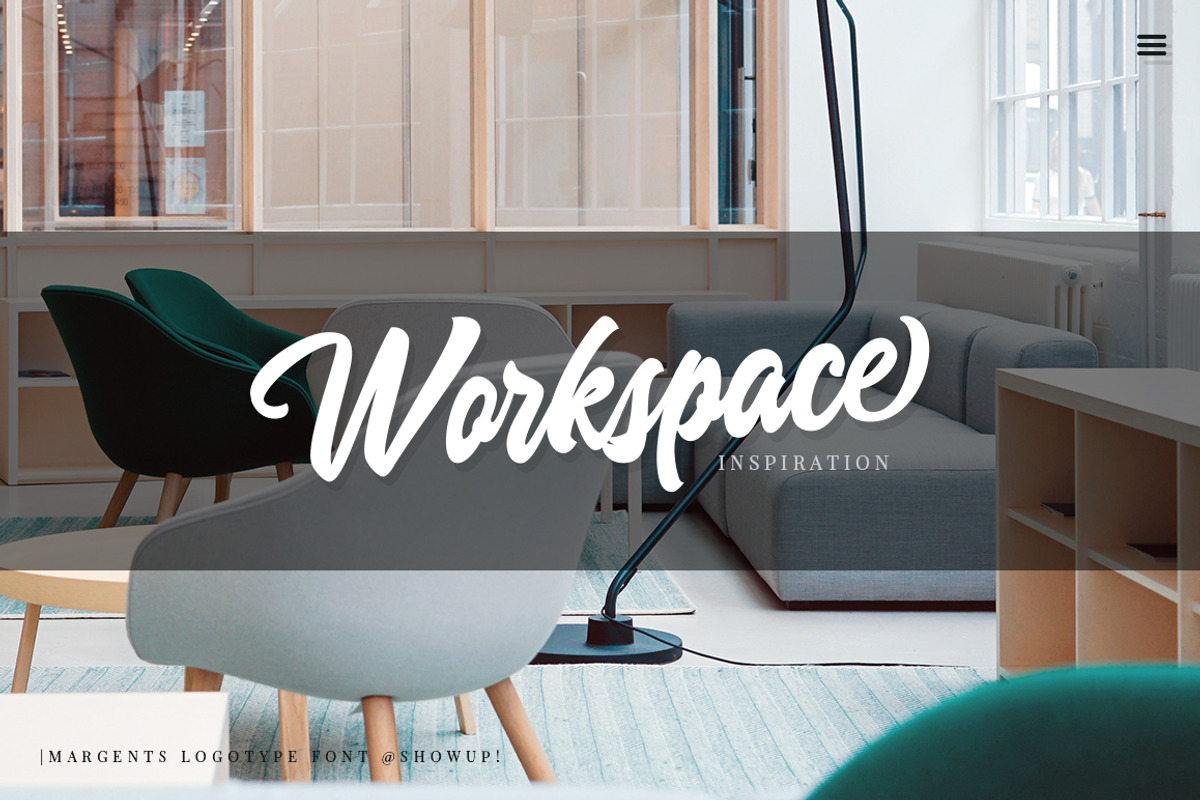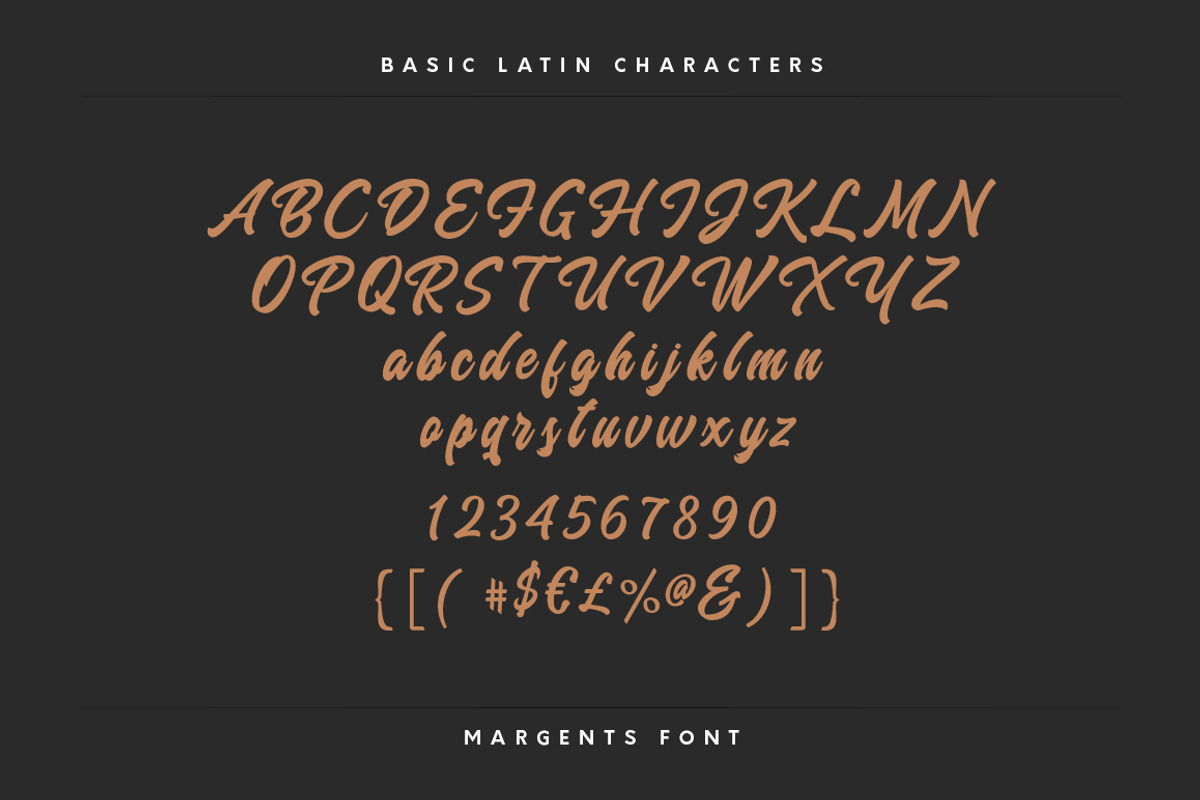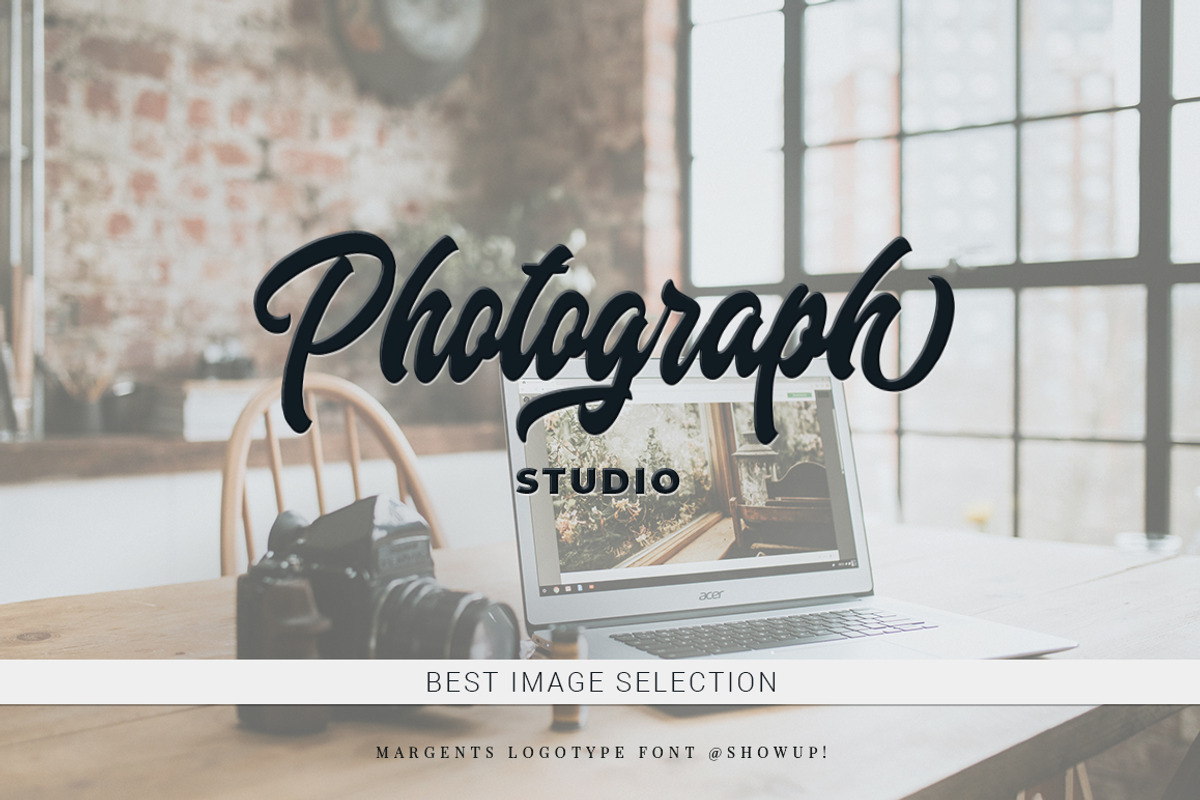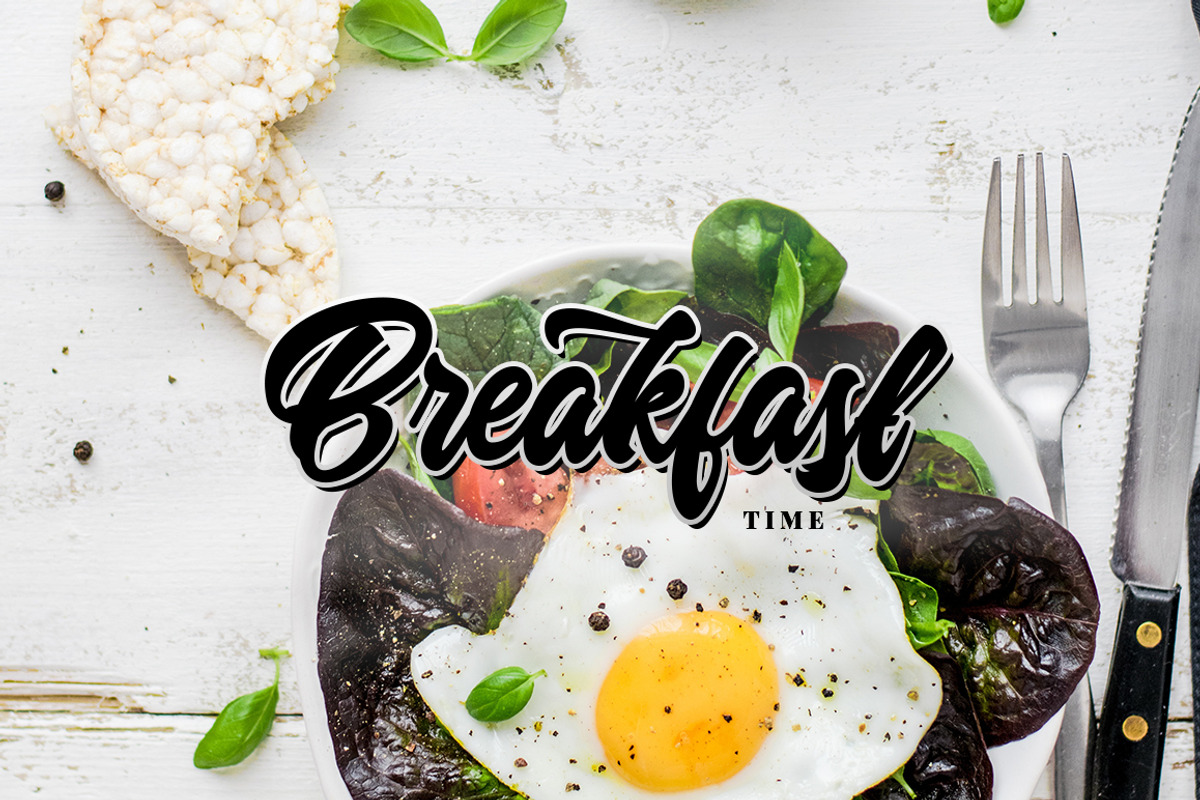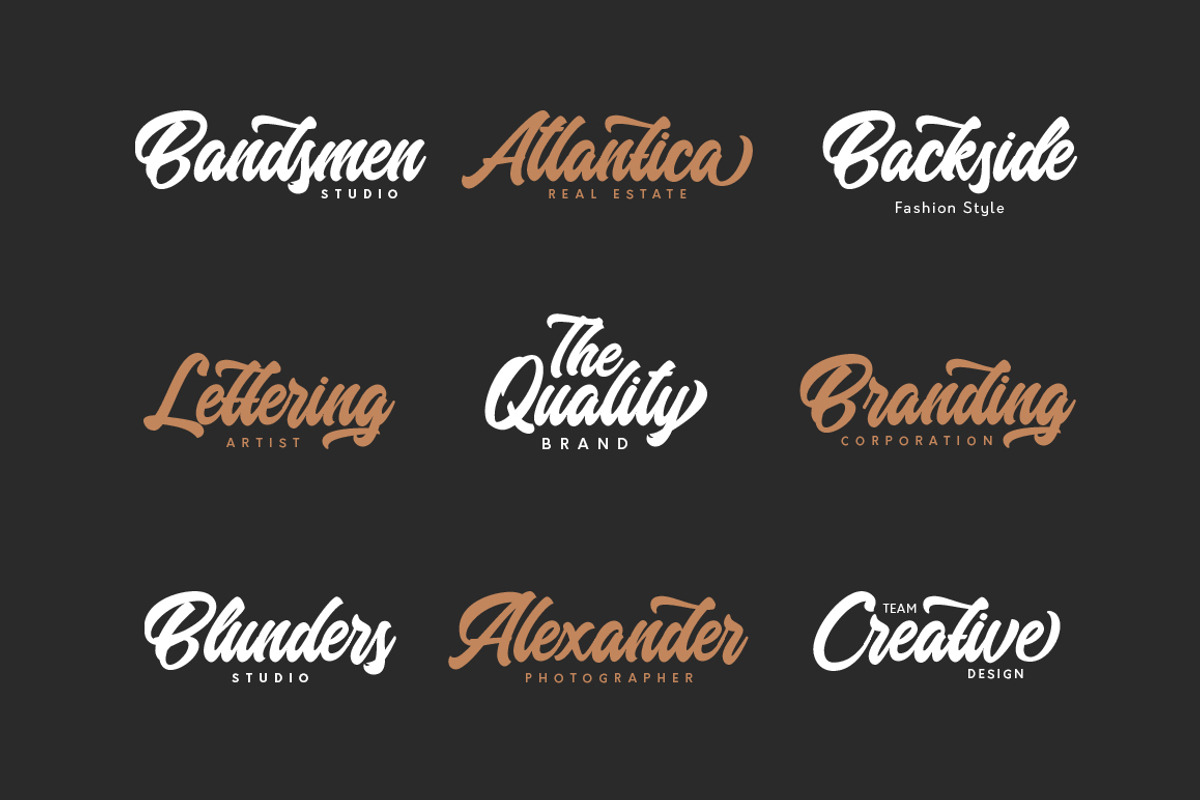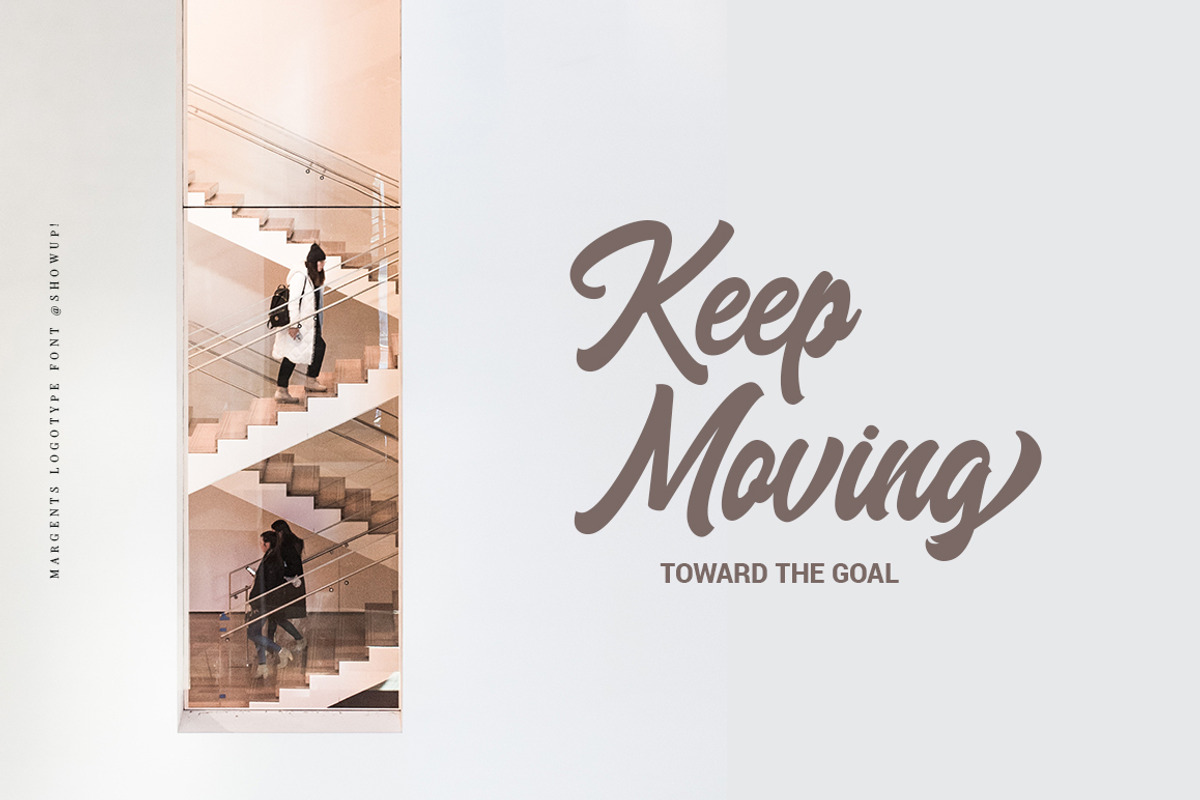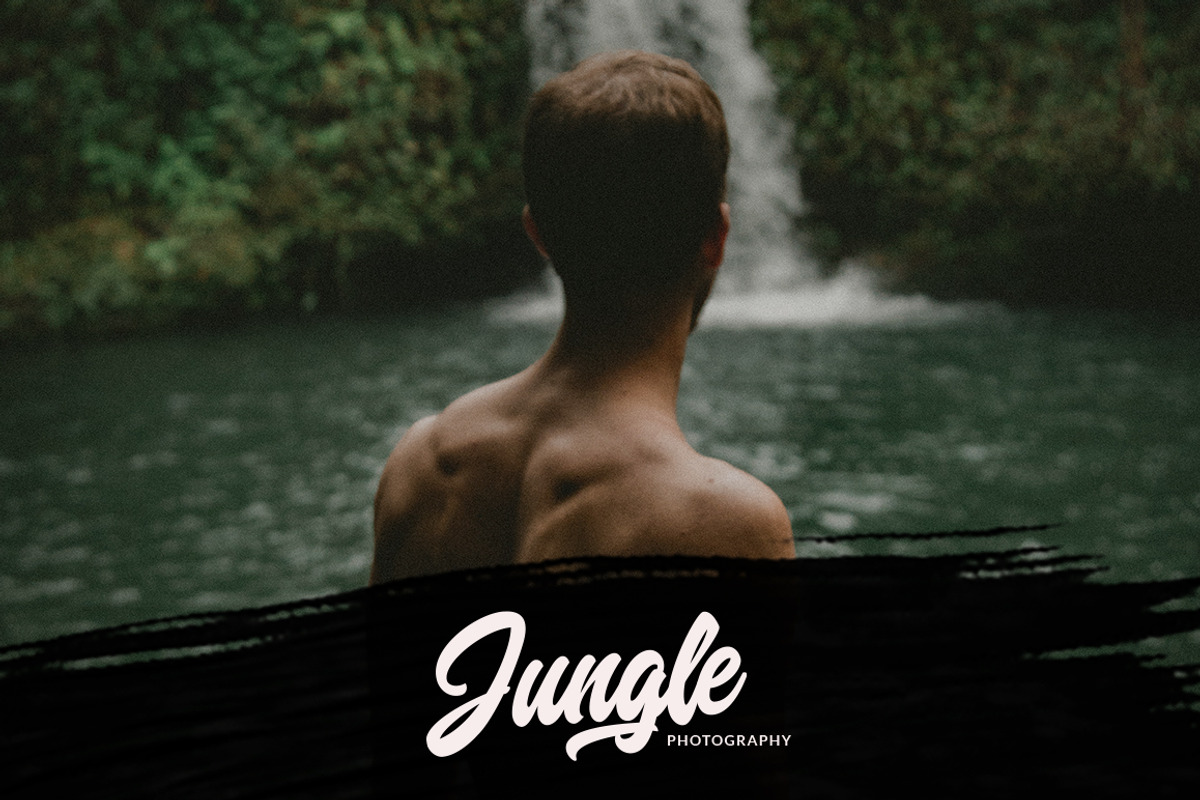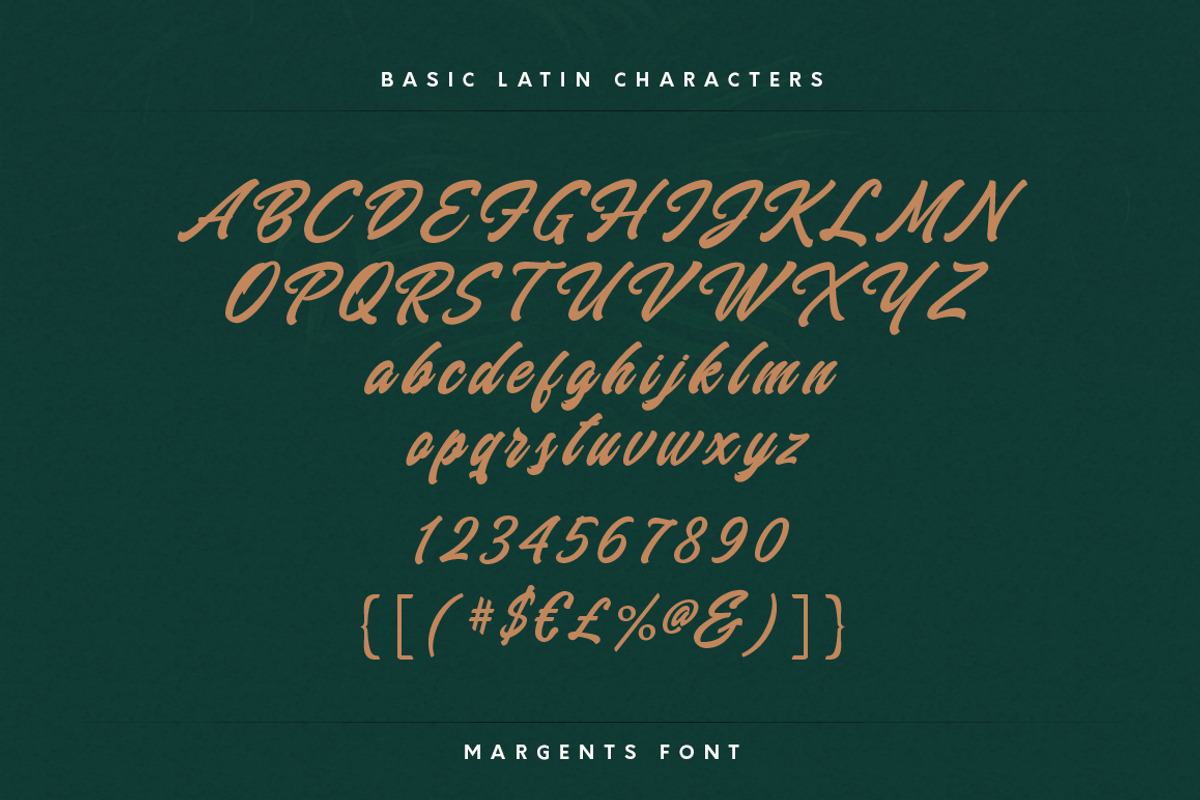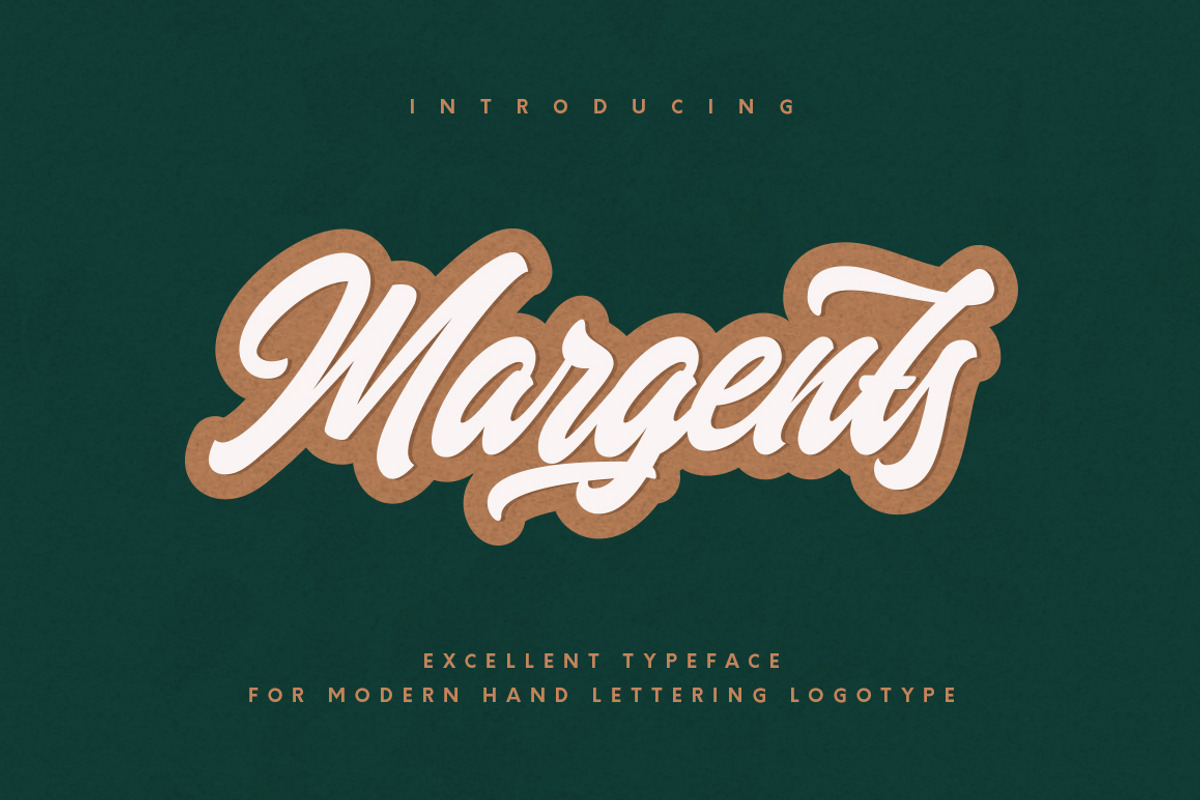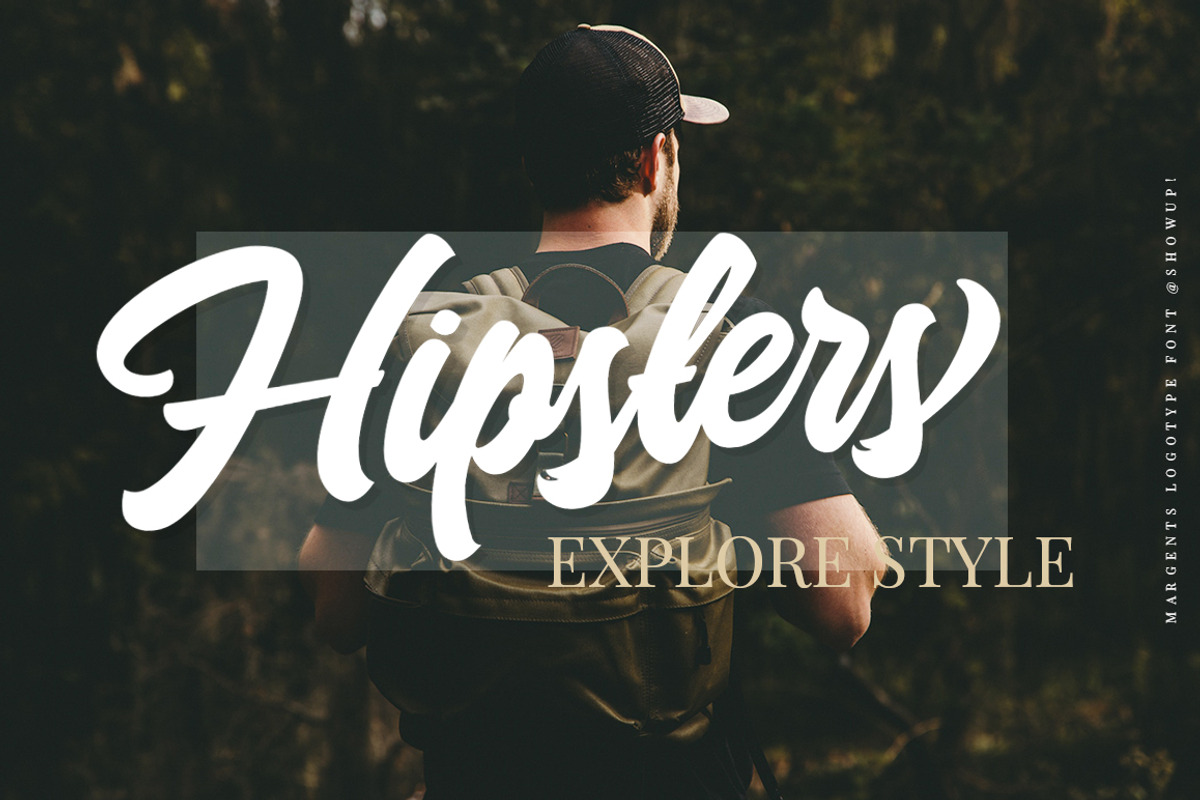
Margents
Margents – Handlettering Logotype Font
Meet Margents, a bold handlettering logotype font crafted to give your designs a confident, handcrafted personality. Featuring smooth flowing curves and expressive strokes, Margents is perfect for creating memorable logos, branding projects, packaging, and eye-catching display typography.
Whether you're building a modern brand identity or designing vintage-inspired merchandise, Margents delivers a handcrafted look that feels both authentic and professional.
Logos & Logotypes
Brand Identity
Apparel & Merchandise
Posters & Headlines
Signage
Business Cards
Labels & Stickers
Cafe & Restaurant Branding
Handcrafted Lettering Style
Swashes